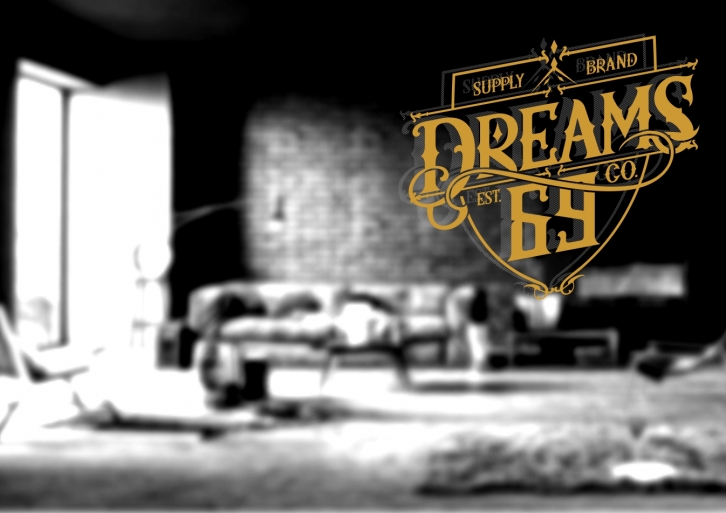
Artedoms typeface is a beautiful font that was designed by Raws-unsleep. It's a great choice for designers and creatives who need such a font. It was released on September 27, 2016 and the file size is 13.9 MB. Artedoms typeface may give a more youthful, expressive and casual look to your project. It is a very beautiful, refined, elegant, and high-quality font.